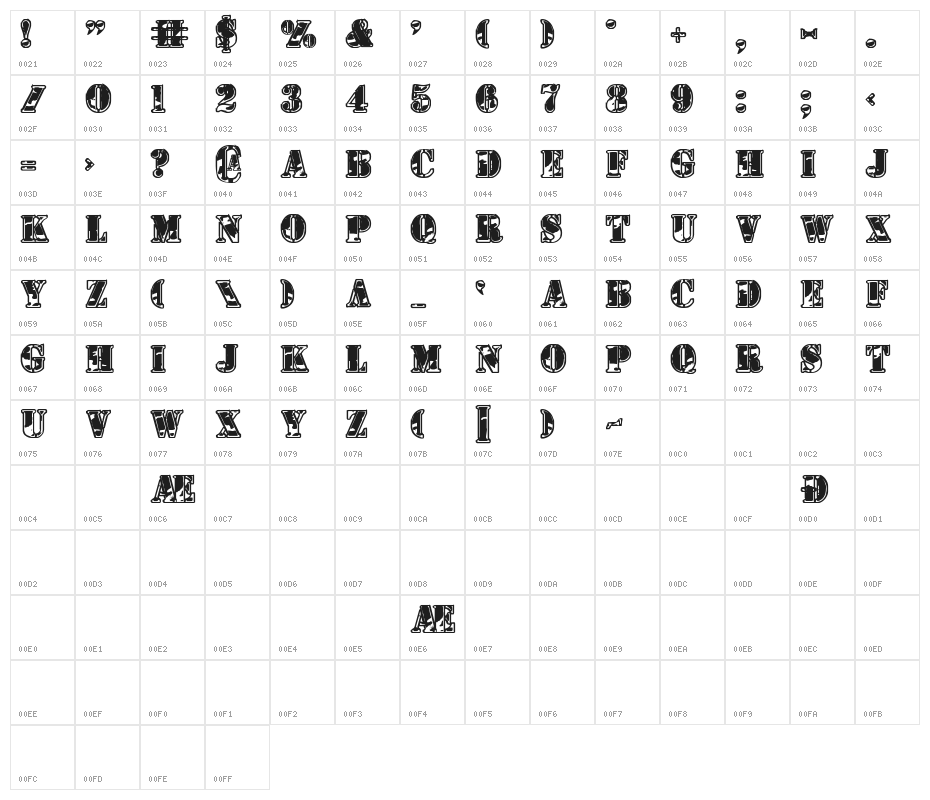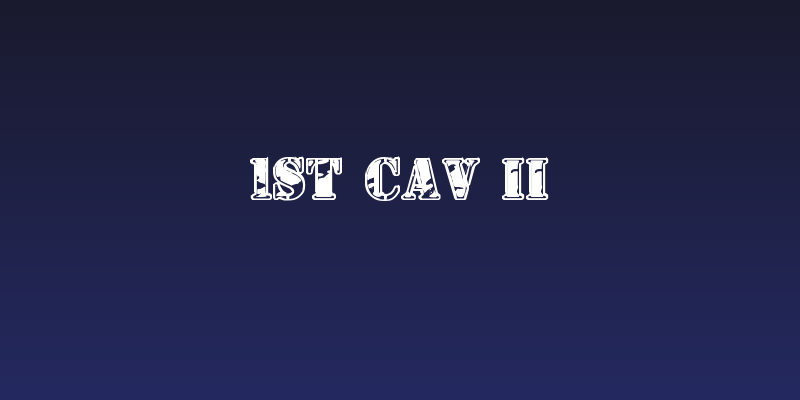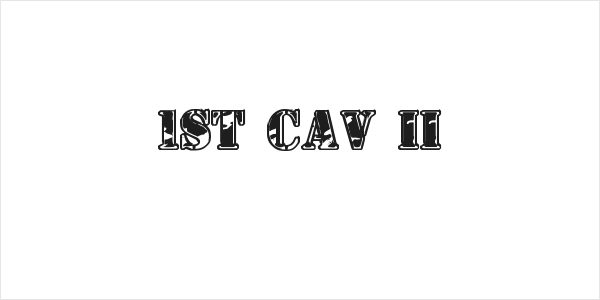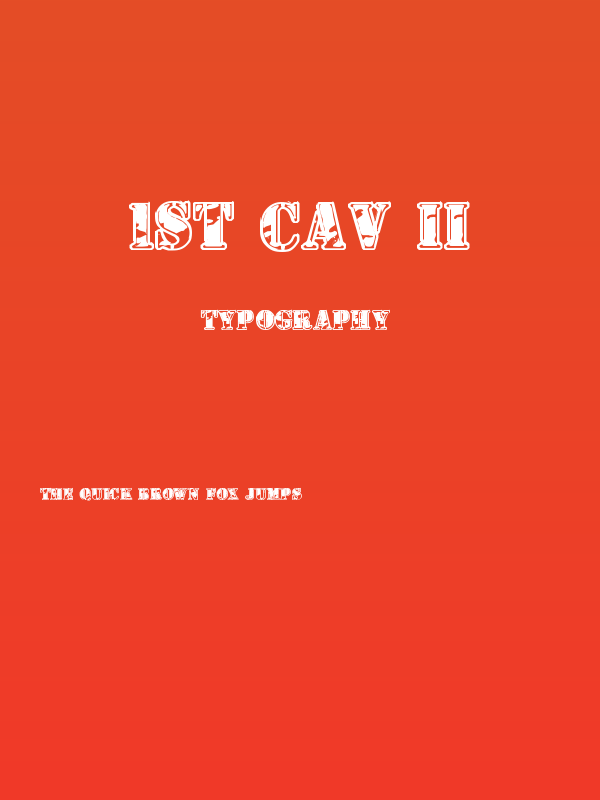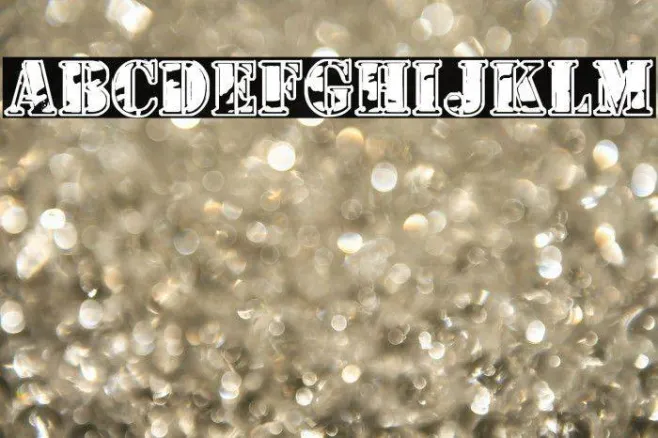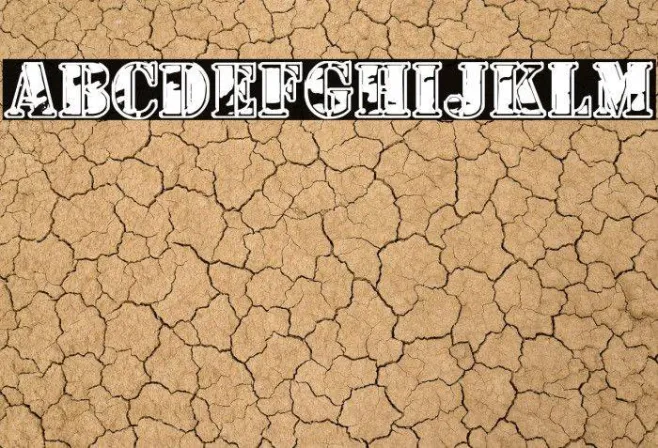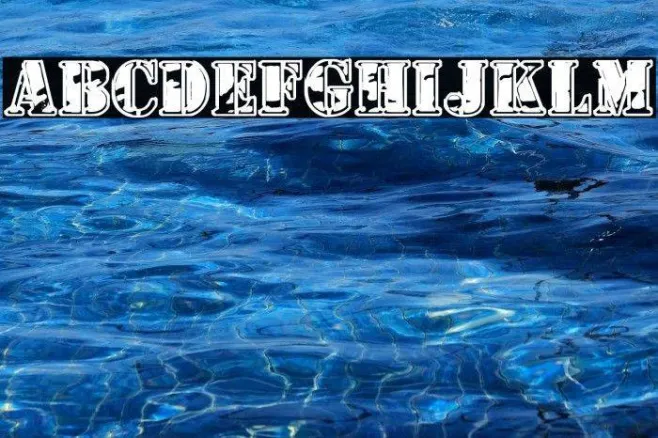
1st Cav II Font
1st Cav II Description
This bold and decorative font features a distressed, grunge style with a strong presence. The uppercase and lowercase letters are designed with thick strokes and a rugged texture, giving them a worn, vintage appearance. The numbers and special characters follow the same aesthetic, making them ideal for projects that require a bold statement. The font's unique style is characterized by its heavy weight and high contrast between the thick and thin strokes, adding to its dramatic and eye-catching look.
| Overall Style | Vintage, Grunge |
| Proposed Projects | Ideal for posters, album covers, branding projects, and any design that requires a bold, vintage look. |